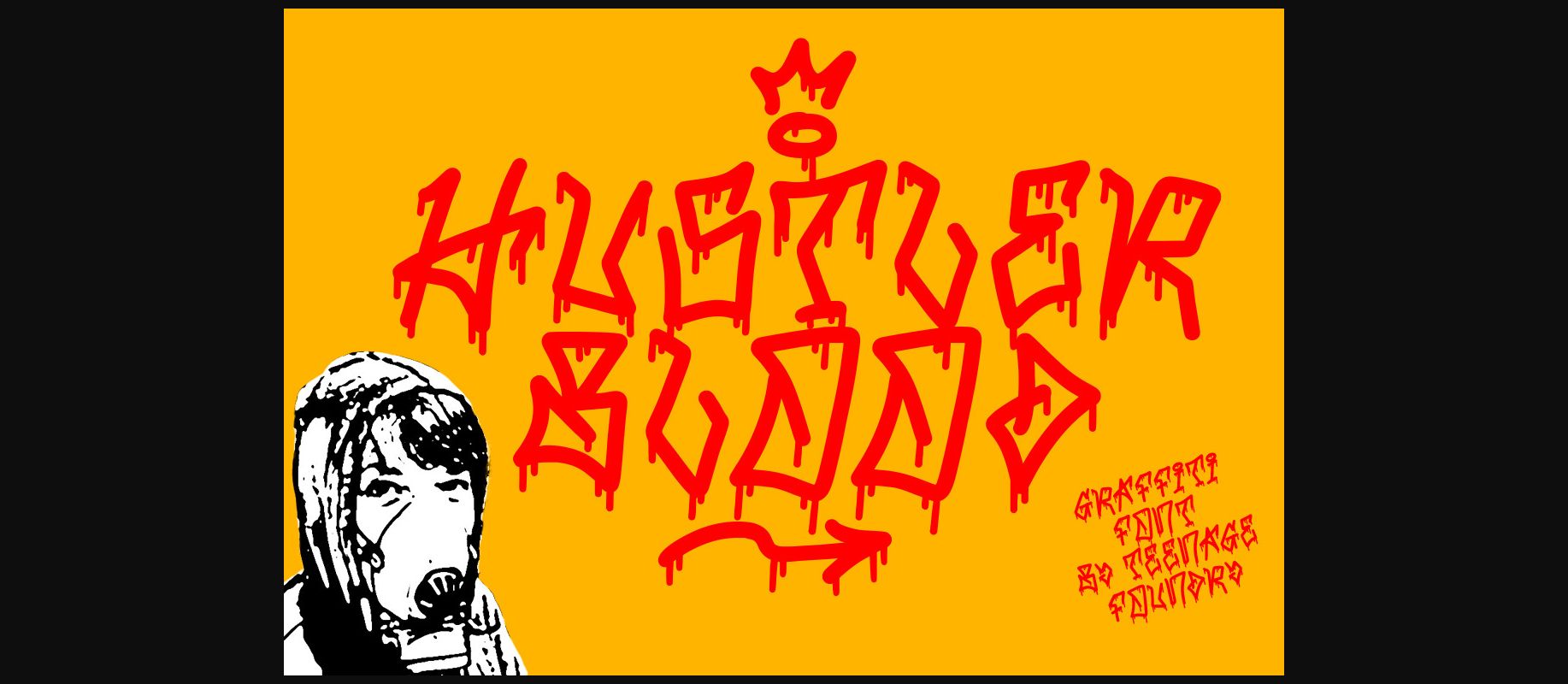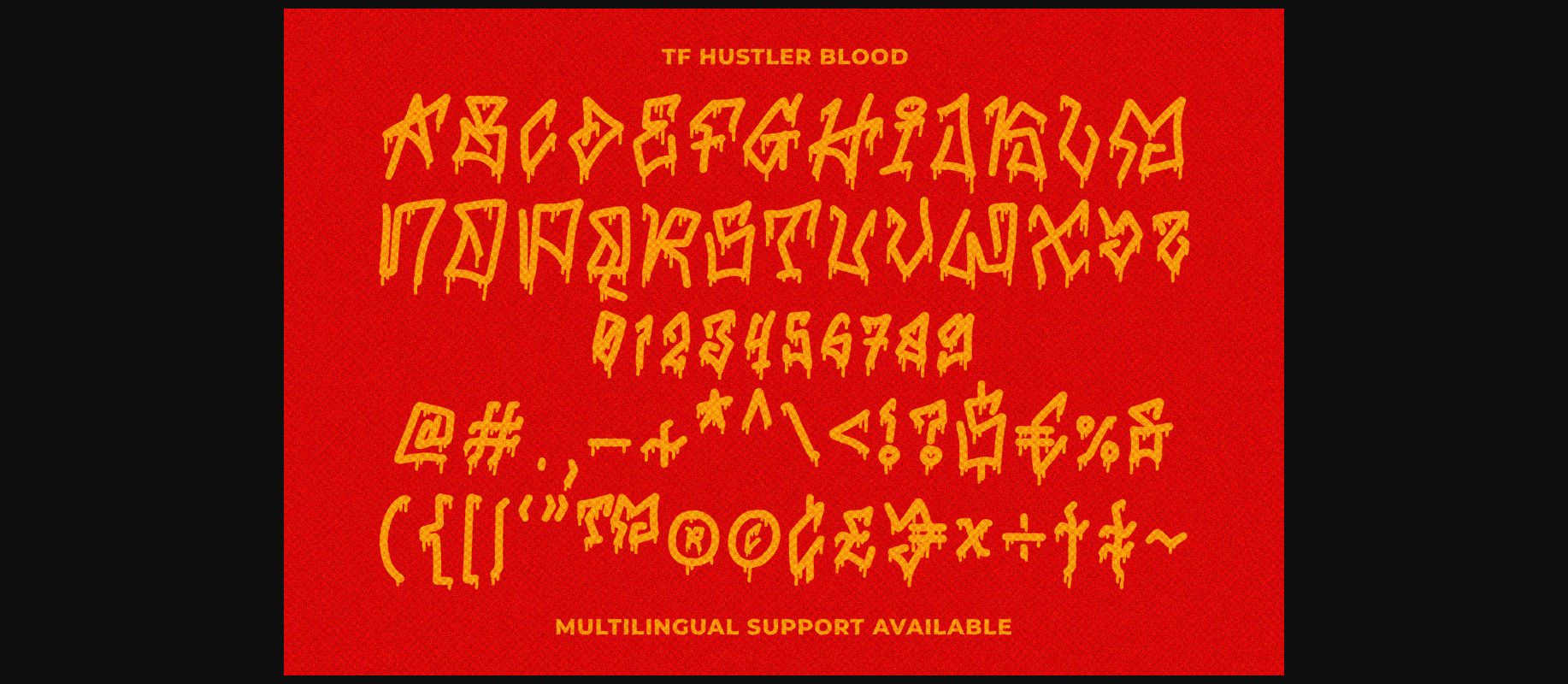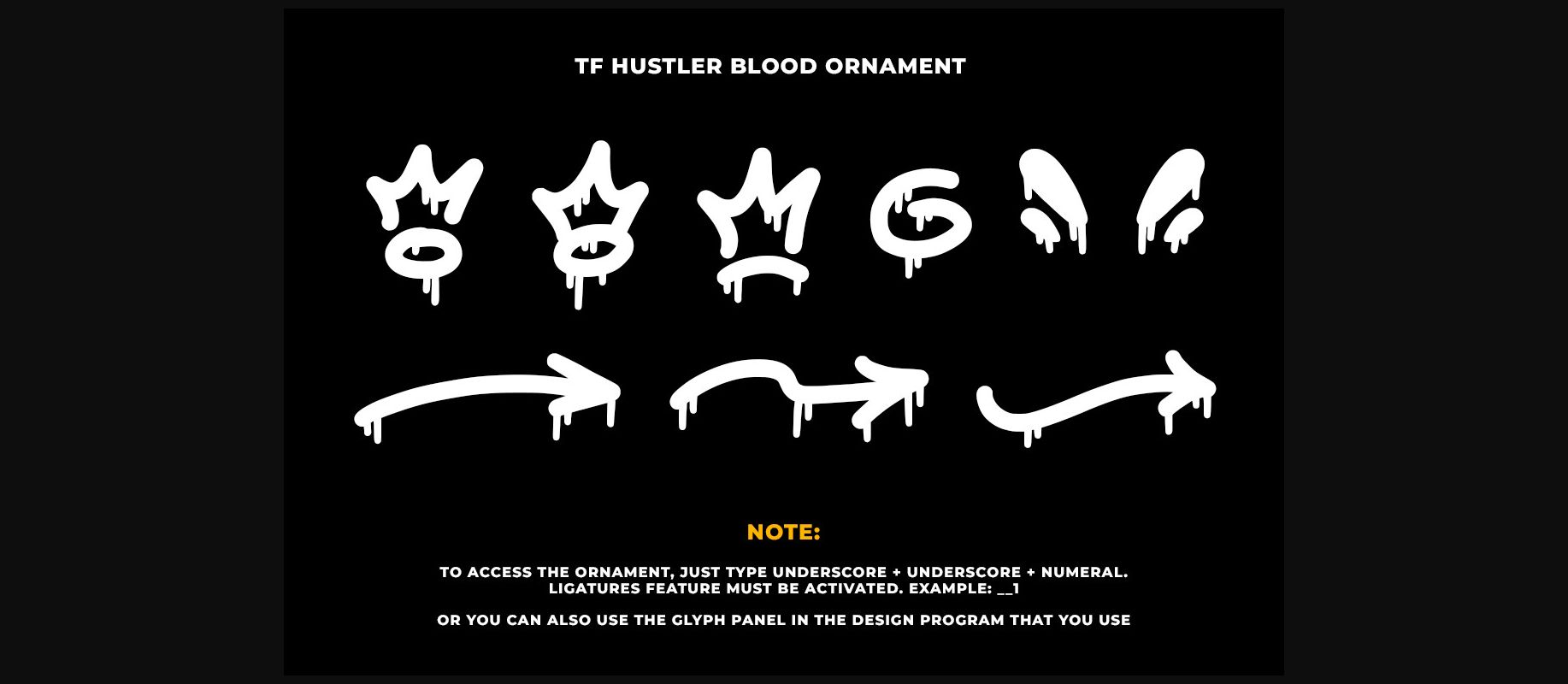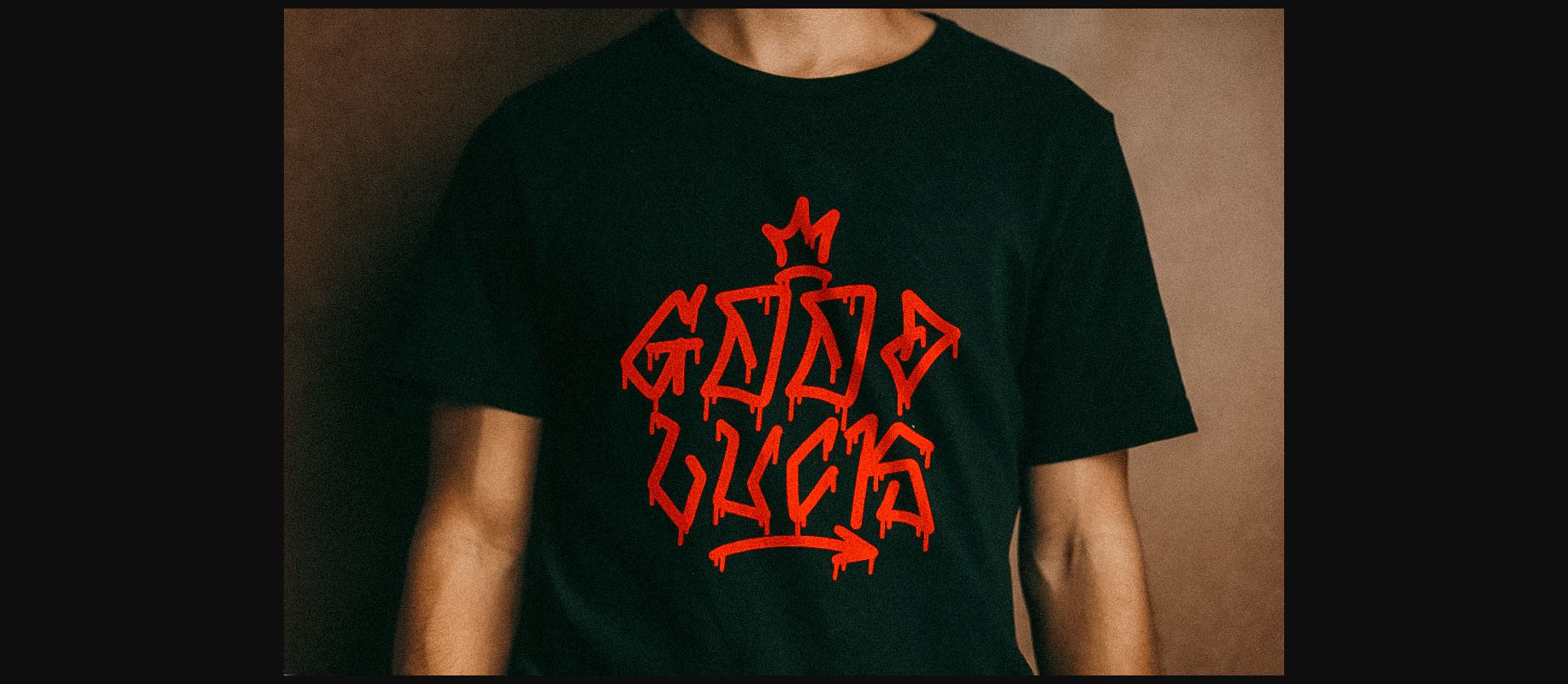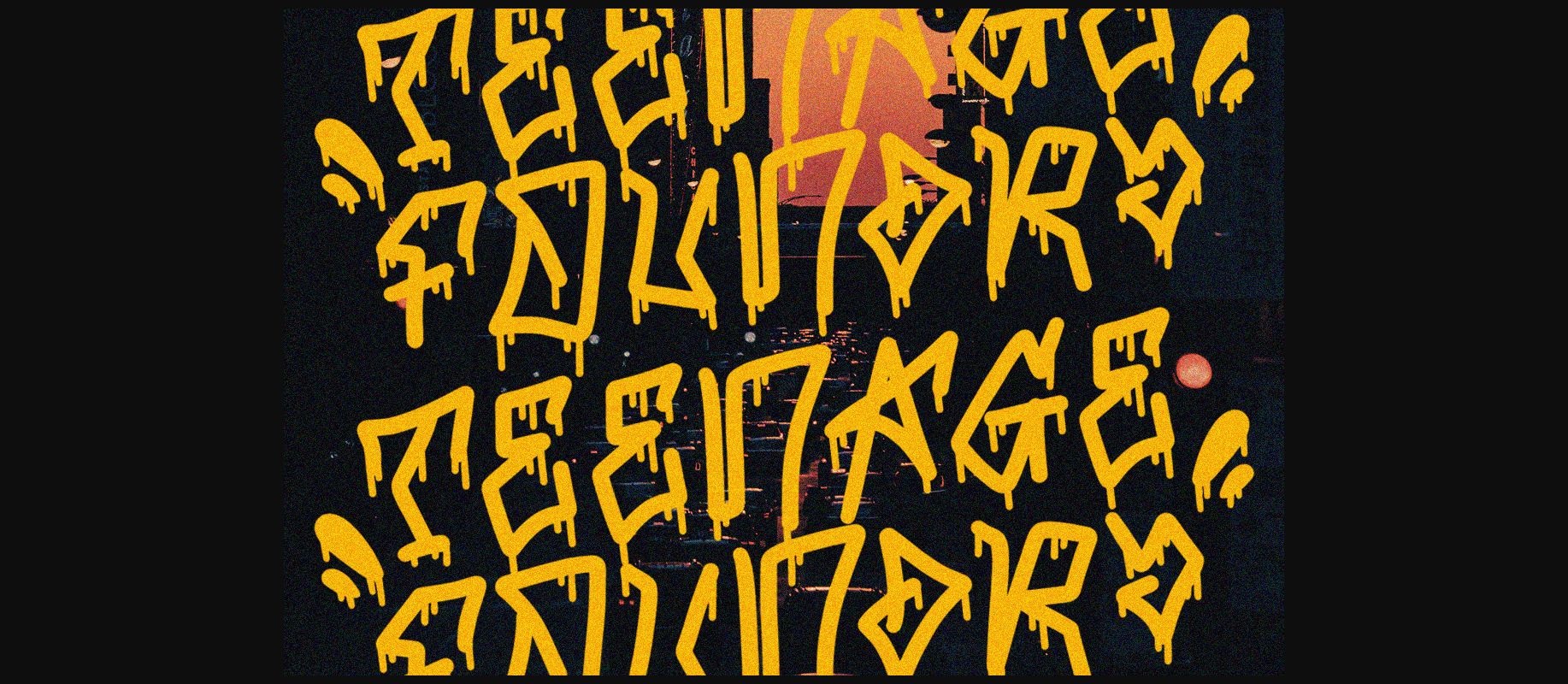
Hustler Blood Font
About Hustler Blood Font
Hustler Blood is a unique and exciting design that is sure to add a splash of creativity to your projects! This font features a monoline style that is complemented by a vibrant splash of paint, giving your designs a unique and eye-catching look.